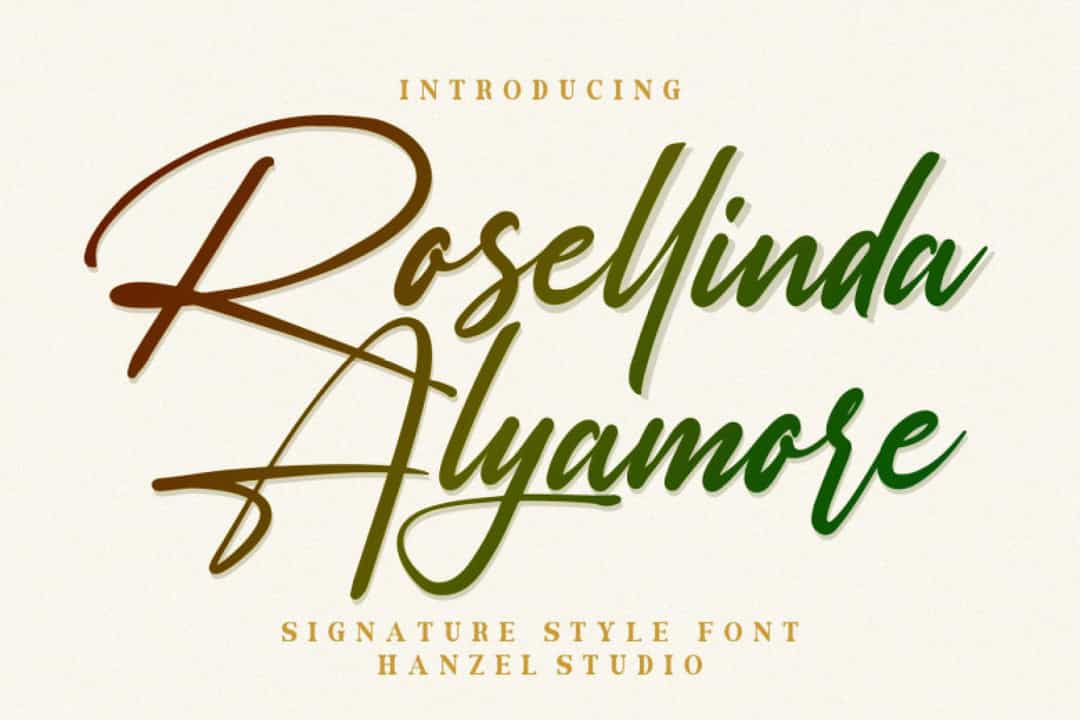
Discover Rosellinda Alyamore Signature Font, part of the Handwritten Script collection—a versatile and unique font perfect for adding a personal touch to your projects. Download it for free and enjoy crafting designs with style, from invitations to social media posts. This font is available exclusively for personal use, giving you the freedom to create without limits. Unlock your creativity with Rosellinda Alyamore Signature Font today!
Rosellinda Alyamore Font. I hope that this font will work well to create signature logos and watermarks for photography studios, wedding invitations, Lable, Logo, Magazine perfect for branding or the initial logo signatures.